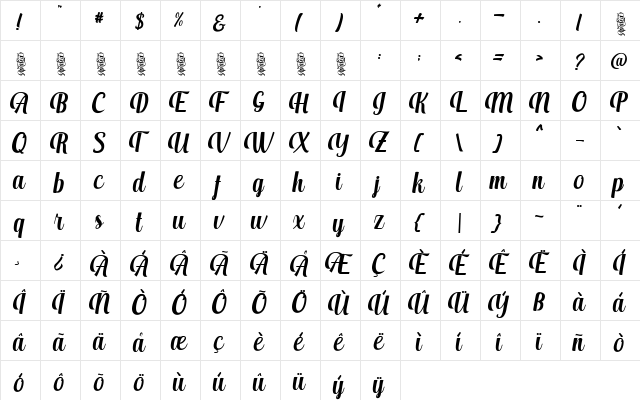
Aprilea Regular
Design Context for Aprilea Typeface
Aprilea is a composed and adaptable typeface that performs quietly and consistently across a wide range of design contexts.